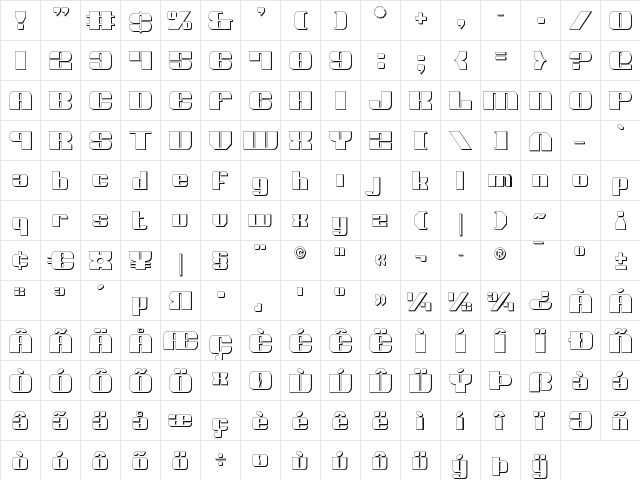
Nolo Contendre Shadow Shadow
Design Context for Nolo Contendre Shadow Typeface
Nolo Contendre Shadow brings ornamental detail and strong personality to headlines and identities, where visual impact matters more than quiet functionality.
Font Pairing: Pair with a clean neutral sans-serif for body copy to let Nolo Contendre Shadow's character lead without overwhelming the composition.
Pro Tip: Treat Nolo Contendre Shadow as the centrepiece of your typographic hierarchy. One strong heading set in a decorative face can carry an entire layout.